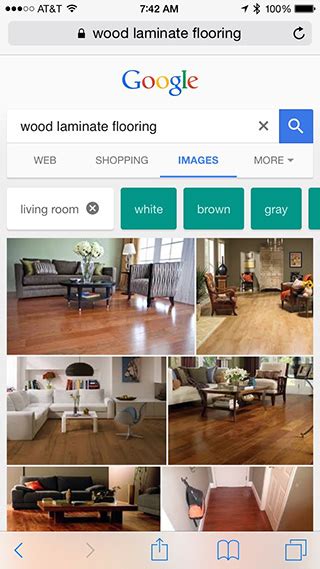
Google Search Bar Font: Decoding The Typography
Decoding the Google Search Bar Font: A Deep Dive into Typography
Hey guys! Ever wondered about the seemingly simple font used in Google’s search bar? It’s a detail that often goes unnoticed, but the typography plays a huge role in how we perceive and interact with the world’s most popular search engine. In this article, we’ll dive deep into the specific font Google uses, explore its characteristics, and understand why it was chosen. Get ready to geek out about fonts, because this is going to be a fun ride!
The Font Revealed: Roboto
So, what’s the deal? The primary font used in Google’s search bar is Roboto . Yep, that’s the one! Roboto is a sans-serif typeface, meaning it doesn’t have the little decorative strokes (serifs) at the end of the letters. It was designed by Christian Robertson and released by Google in 2011. And it wasn’t just pulled out of a hat, either. Roboto was specifically crafted to be the ‘voice’ of Android , Google’s mobile operating system, making it incredibly versatile, and it’s also used across various Google products. Its clean, modern look makes it perfect for digital interfaces, easy to read on screens of all sizes, and gives Google a cohesive brand identity.
Now, let’s get into the nitty-gritty. Roboto is designed to be highly legible. Google understands that users need to quickly and easily read search queries, results, and other information, and the Roboto font family helps them to achieve this. It’s got a neutral yet friendly appearance that doesn’t distract from the content. It’s like, imagine a font that’s your reliable friend – always there, never trying to steal the spotlight. Its versatility stems from its wide range of weights and styles (light, regular, bold, italic, etc.), which allows it to be used in various contexts, from headlines to body text. This adaptability makes it suitable for everything from the search bar to the vast amount of information displayed on the search results pages.
Roboto’s Characteristics
• Sans-serif: Clean, modern, and readable.
• Geometric forms: Gives it a balanced and harmonious look.
• Open counters: Enhances readability, especially at smaller sizes.
• Variety of weights and styles: Offers flexibility for various design needs.
Why Roboto? Google’s Font Choice Explained
Okay, so why did Google pick Roboto? The answer is more complex than you might think! It’s not just about aesthetics, but also user experience and branding. Using Roboto in the search bar (and across many other Google products) is a strategic move that helps build a consistent brand identity. When users see Roboto, they immediately associate it with Google, which strengthens brand recognition and trust. This is the goal, right?
Secondly, readability is a major factor. The search bar is a crucial element of the user interface. It’s where users type in their queries, the gateway to the world of information. The font needs to be crystal clear, especially on different devices and screen sizes. Roboto’s design ensures that text remains easy to read, even when the search bar is small or on a high-resolution display. Google wants to provide a seamless and effortless experience for its users, and the font choice plays a significant role in achieving this. Moreover, Roboto is optimized for digital interfaces. The font is specifically designed for screens. Digital design is the future, right? From tablets to smartphones, Roboto works great. Its legibility and clarity make it a perfect fit for the digital age, a design choice of great importance.
Google also needed a font that could be used across multiple languages. Roboto supports a wide range of characters and glyphs, making it suitable for users around the world. Internationalization is key in the global landscape of the internet, so Google needed a font that could accommodate this. And the best part? It’s free . Roboto is an open-source font, available for anyone to use. This means Google can freely use it across their platforms without worrying about licensing fees or restrictions. Talk about a win-win!
Font Variations: The Evolution of Roboto
Fonts, like anything else, evolve! And Roboto is no exception. Over the years, Google has made subtle tweaks and refinements to the font to improve its performance and visual appeal. These changes have been primarily focused on enhancing legibility, particularly on smaller screens and in different contexts. Google understands that the perfect font may not exist. But what is key is the constant work of improvement. From the beginning, Google has been dedicated to improving user experience and visual appearance, and Roboto’s evolution reflects this commitment.
One of the most notable changes has been the optimization of Roboto for mobile devices. As the use of smartphones and tablets has grown, Google has adapted the font to ensure that it remains clear and readable on smaller screens. This has involved adjustments to the letterforms, spacing, and weight of the font. Google’s commitment to mobile optimization is driven by the fact that a large percentage of its users access its services through mobile devices. They need to ensure that the font is readable and visually appealing. This commitment extends to accessibility, where Google has also made adjustments to ensure the font is usable by people with visual impairments. Enhancements for high-resolution displays have also been introduced. As screens become more and more advanced, the demand for sharper, clearer fonts has also grown.
The Impact of Font Choices
• Readability: Ensures users can easily read search queries.
• User experience: Contributes to a smooth and intuitive interface.
• Branding: Reinforces Google’s brand identity.
• Accessibility: Improves usability for all users.
Beyond the Search Bar: Roboto in Google’s Ecosystem
Okay, let’s zoom out a bit. Roboto isn’t just chilling in the search bar. It’s the star player across many of Google’s products and services. You’ll see it in Android, YouTube, Google Maps, and Gmail. This widespread use creates a consistent visual experience across all platforms. It’s like a visual language that users recognize and trust. Think of it as a consistent design language. This consistency also simplifies user navigation. Because users see the same font across different Google products, they can easily familiarize themselves with the design elements, making the user experience more seamless. This unified design approach is important, because it makes the whole experience much more unified and professional.
When Google makes changes to Roboto, it can impact millions of users across the globe. Google is always trying to make sure that the font is optimized for all applications and platforms. Google’s use of Roboto is a great example of how much thought goes into the design of even the smallest details of the product. The font impacts the company’s brand, user experience, and accessibility.
Other Fonts You Might Encounter
While Roboto is the star of the show, you might occasionally see other fonts in Google’s ecosystem. For example, when you are looking at different websites in search results, you will encounter the font that each website uses. However, Roboto is still the dominant font. In addition, Google may use other fonts for things like special headings, logos, or even on a new product. So, as you browse the web, keep your eyes peeled for those subtle font variations.
Conclusion: The Importance of Font Choices
Alright, folks, there you have it! We’ve journeyed through the world of fonts, specifically focusing on the font used in Google’s search bar. Choosing a font may seem like a small decision, but it has a huge impact on user experience, branding, and accessibility. Google’s choice of Roboto is a testament to the importance of carefully considering the details.
So next time you’re searching the web, take a moment to appreciate the subtle yet significant design choice that makes the experience a little smoother. It’s like when your favorite band has a great song. It may seem simple, but its beauty makes the whole thing a masterpiece. The same thing can be said for Roboto and the search bar. Google has made great font choices, and this is why their product is such a success! I hope this helps you guys! Peace out.